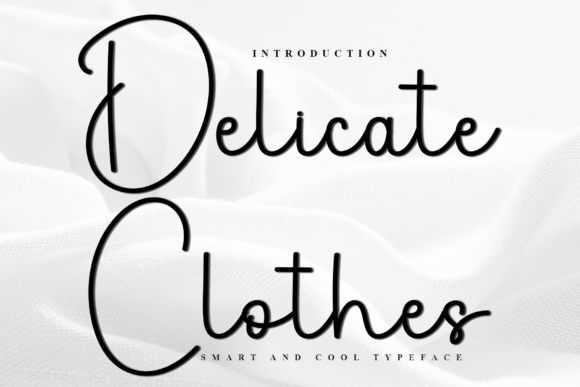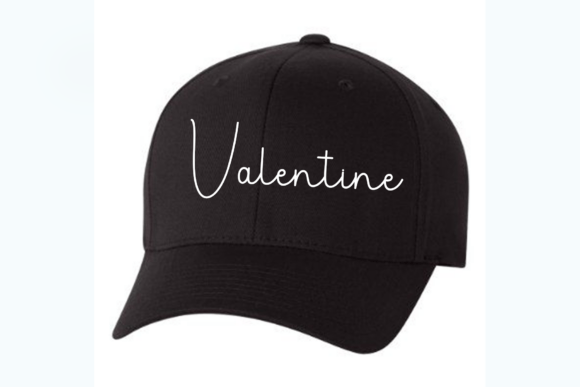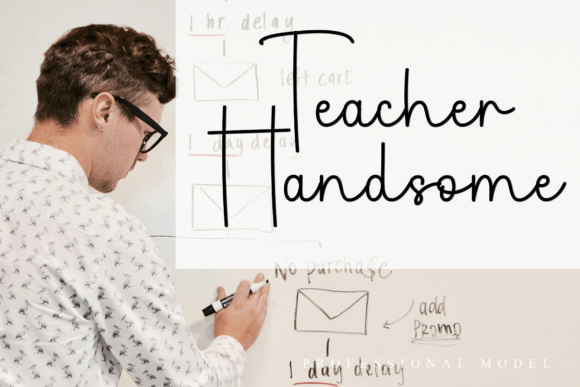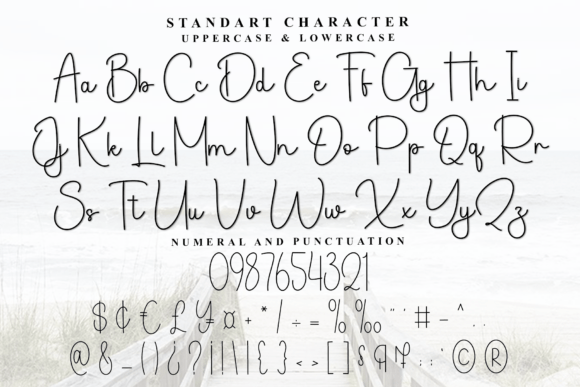
Enter Delicate Clothes Font, a typeface that embodies the spirit of the holiday season with its playful, whimsical flair. This charming font is designed to add a touch of enchantment to your designs, making it perfect for all your holiday-themed projects. With its decorative elements and PUA encoding, which allows easy access to its amazing glyphs and ligatures, Delicate Clothes Font is a valuable addition to any designer’s toolkit.
Delicate Clothes Font Key Features
- Font Family: Delicate Clothes Font
- Unique Characteristics: Hand-drawn illustrations and intricate details, suitable for fashion and lifestyle brands
- Character Set: Supports Latin, Cyrillic, and Greek alphabets, as well as various symbols and punctuation marks
Designer Review: Delicate Clothes Font
At first glance, the Delicate Clothes Font caught my eye with its whimsical, hand-drawn style. ✨ It’s perfect for adding a touch of elegance to your designs, especially when working with fashion or lifestyle brands. The font’s flowing lines and delicate flourishes make it an excellent choice for titles, headings, and body text.
However, there are a few limitations to consider. ⚠️ The font may not be the best choice for body text due to its complexity and potential readability issues. Additionally, the font’s large size and detailed design may make it difficult to use in smaller sizes or on screens with lower resolutions.
Here are some key features that I liked:
- Whimsical, hand-drawn style that adds a touch of elegance
- Perfect for fashion, lifestyle, or luxury brands
- Excellent choice for titles, headings, and body text
Overall, I think the Delicate Clothes Font is a great addition to any designer’s toolkit. While it may have some limitations, its unique style and versatility make it a valuable asset for creating beautiful, high-end designs.
Getting the Most Out of Delicate Clothes Font
To get the most out of Delicate Clothes Font, use it for:
- Branding and marketing materials for fashion and beauty companies.
- Designing delicate and feminine graphics and illustrations.
Delicate Clothes Font is commonly used for:
- Creating elegant and sophisticated text effects.
- Designing graphics and illustrations for fashion and beauty magazines.
- Adding a touch of
Alex Brush Font is a beautiful, handwritten font that is reminiscent of a calligrapher’s brushstrokes. It is perfect for designers who want to add a touch of elegance and sophistication to their designs. Compared to Delicate Clothes Font, Alex Brush Font has a more organic and natural feel, making it ideal for titles, headings, and other display text.
Delicate Clothes Font Creative Projects
Project 1: Whimsical Wardrobe Wall Art
Create a unique wall art piece that showcases your favorite fashion quotes or phrases in a delicate, cursive font. The Delicate Clothes Font is perfect for adding a touch of elegance and sophistication to your design.